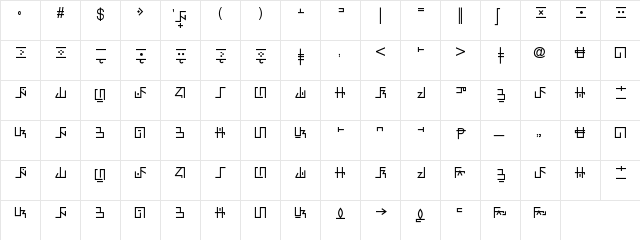
Unknown Baybayin Variant Regular
Design Context for Unknown Baybayin Variant Typeface
Unknown Baybayin Variant offers clean, dependable letterforms without strong stylistic allegiance, making it a practical choice for designers who need flexibility.